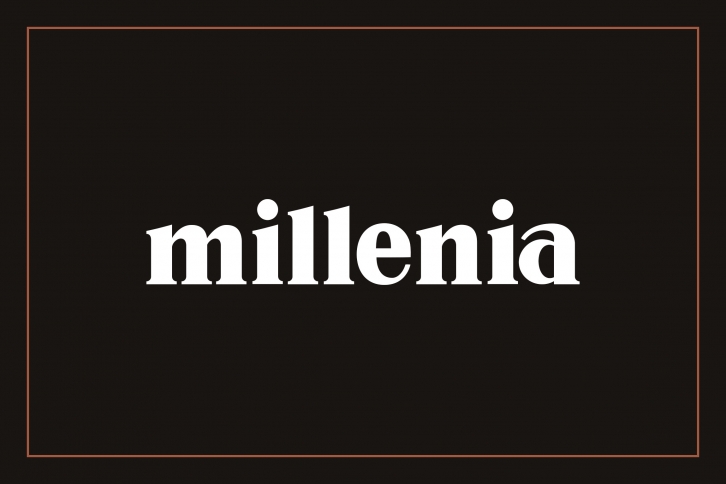
Millenia - Serif Font Download
Millenia is a great font that was designed by Corgi Astronaut. Imagine the amount of combinations you can create using this font! The archive is 9.52 MB and it was released on September 5, 2017. Millenia looks beautiful on wedding invitations, greeting cards, logos, posters, labels, t-shirt designs, logos, business cards and is perfect for use in ink or watercolor works, fashion, magazines, packaging and food menus, children's books and more!